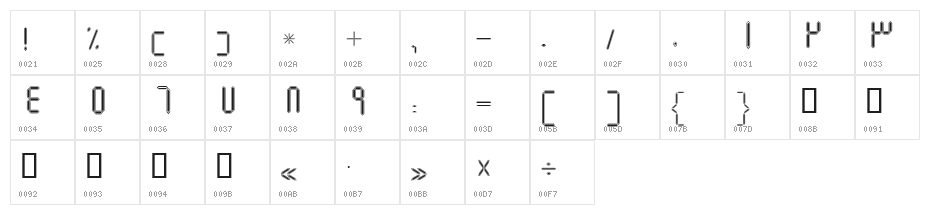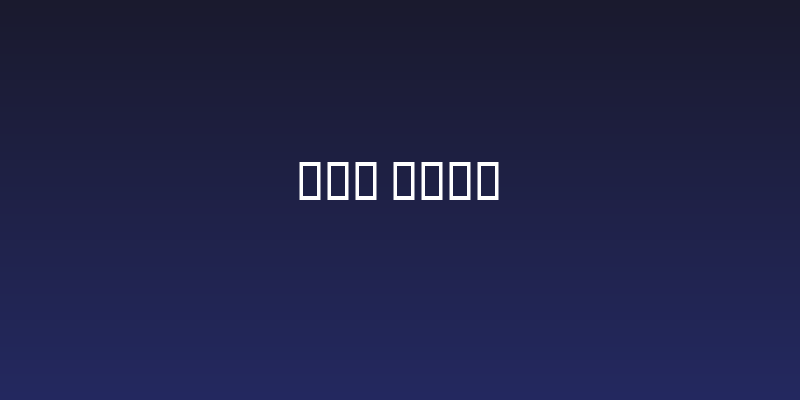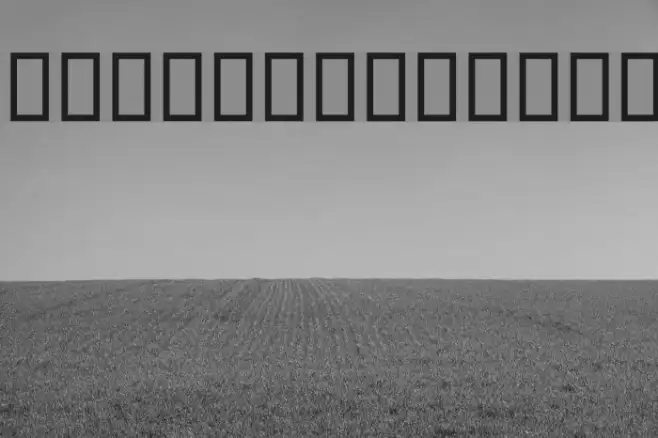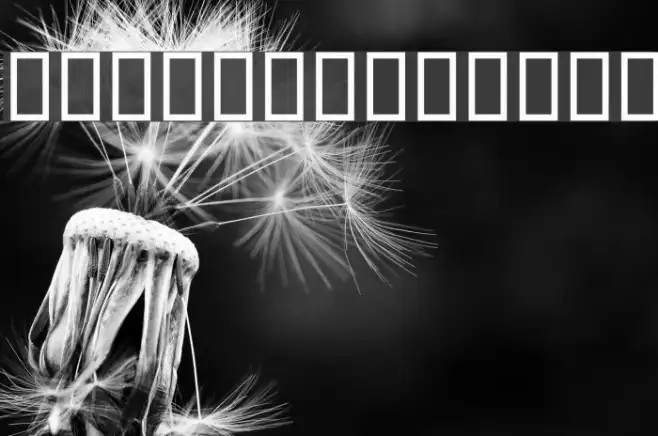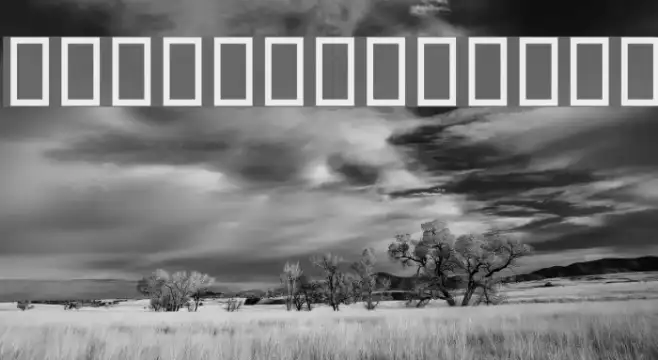
Elm Bold Font
Elm Bold Description
This font features a futuristic and geometric design, characterized by its bold, angular lines and distinct, segmented appearance. Each character is constructed with a series of straight lines and sharp angles, giving it a digital, almost robotic feel. The font's unique style is reminiscent of LED displays or digital clocks, making it stand out with its modern and tech-inspired aesthetic. The characters are evenly spaced, with a consistent width that enhances readability while maintaining its distinct style. This font is ideal for projects that require a contemporary and innovative look, such as technology branding, digital interfaces, or sci-fi themed designs.
گالری فانت فارسی پژوهش آريانا - only compatible with Farsi and Arabic
| Use Case | Logos, Headlines, Digital interfaces |
| Proposed Projects | Ideal for technology branding, digital interfaces, sci-fi themed designs, and modern advertising. |